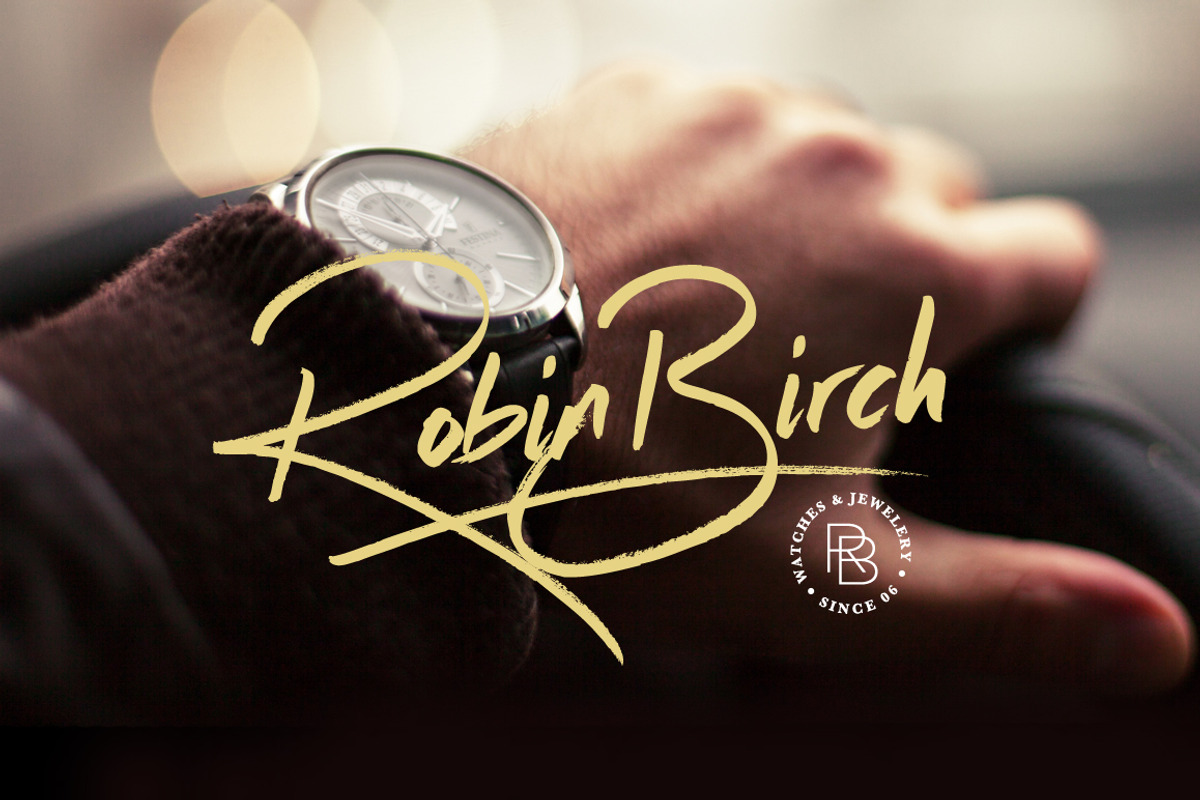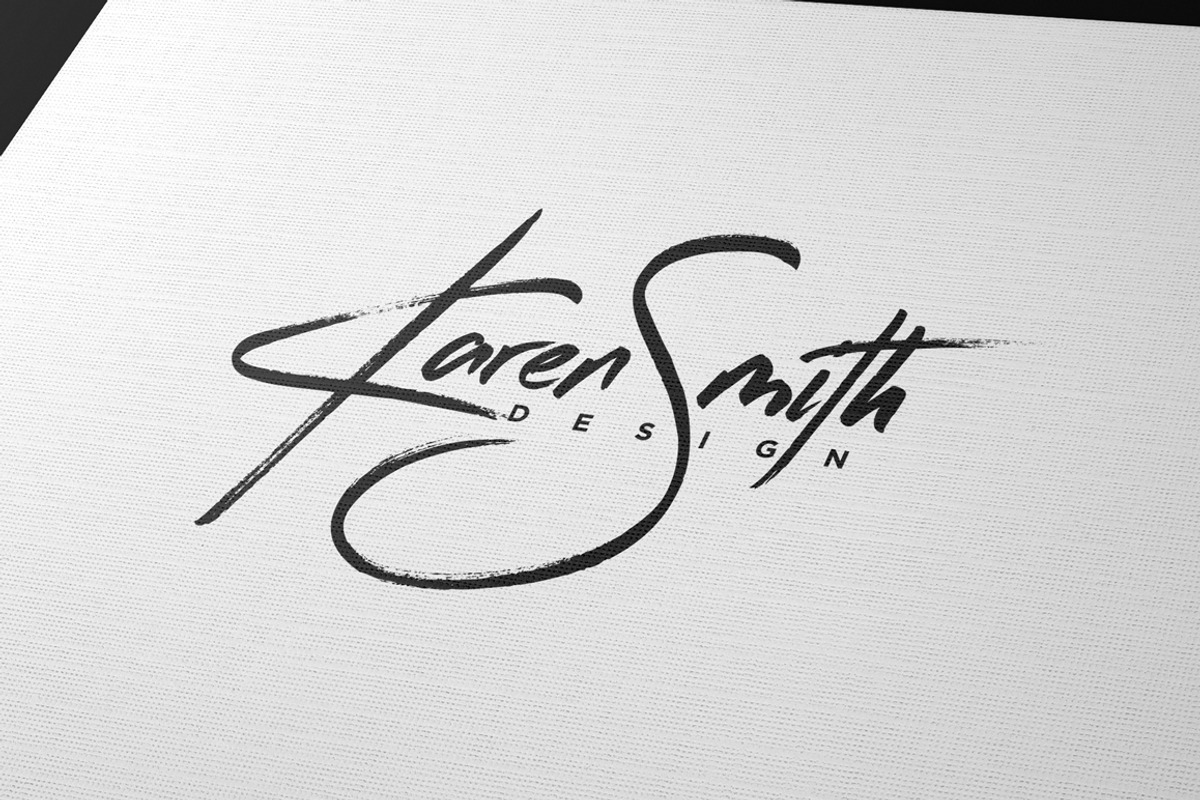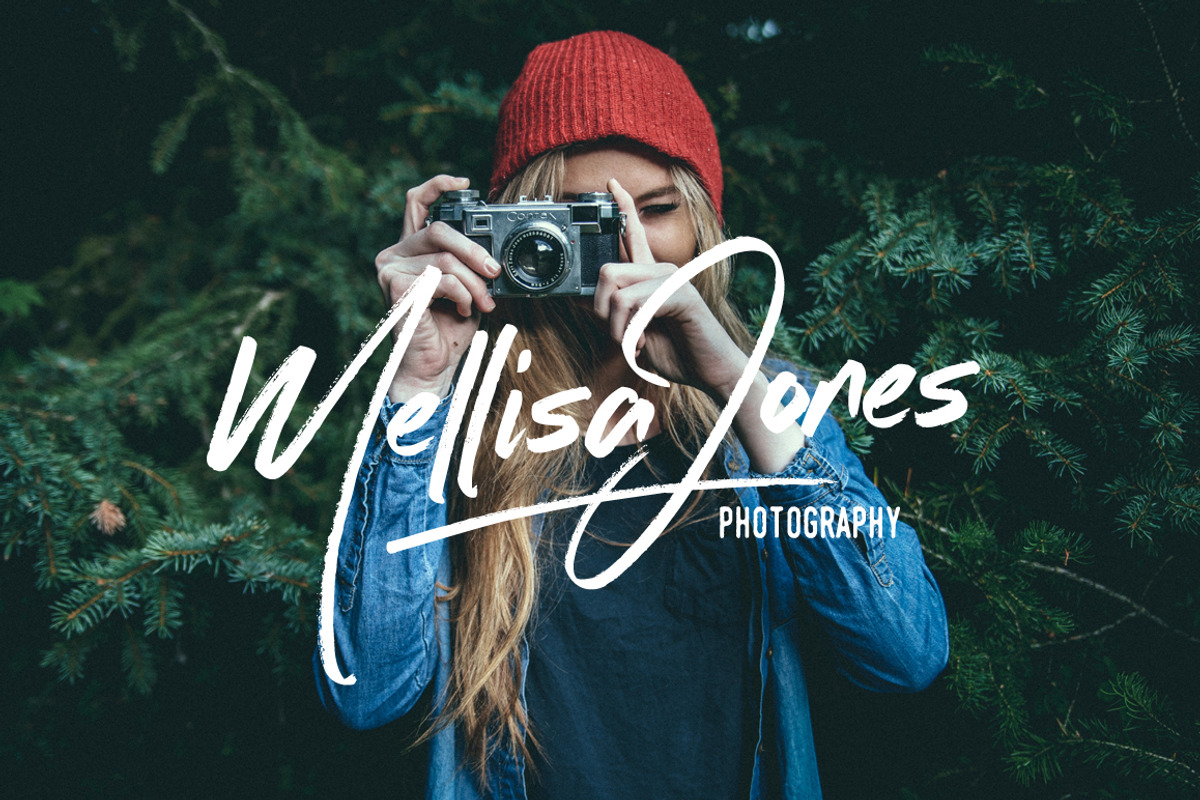
Imogen Agnes is a hand-made, signature-style font designed to create personal, stylish lettering quickly & easily. It works great for personal logos, but also makes for a strong standalone script font with a bit of a retro vibe to it.
It comes with upper & lowercase characters, numerals, and punctuation and supports international languages. It also comes with a bonus set of 15 swashes just to add that final touch of finesse to your text.